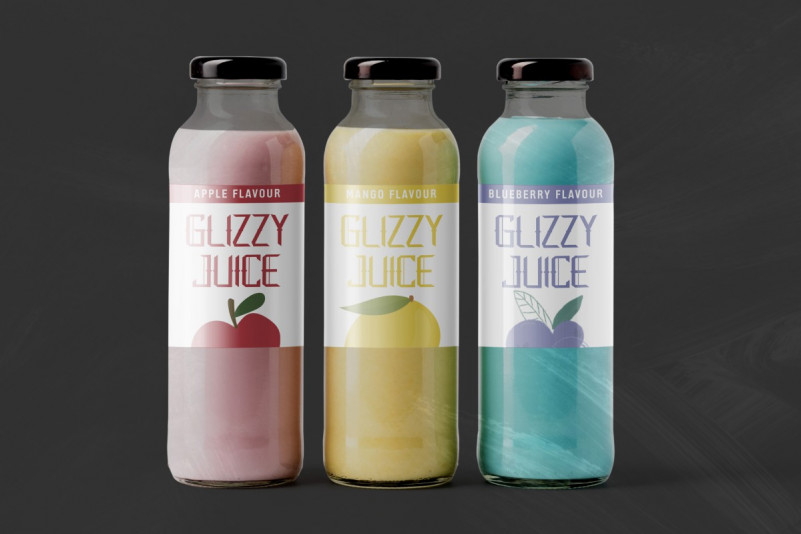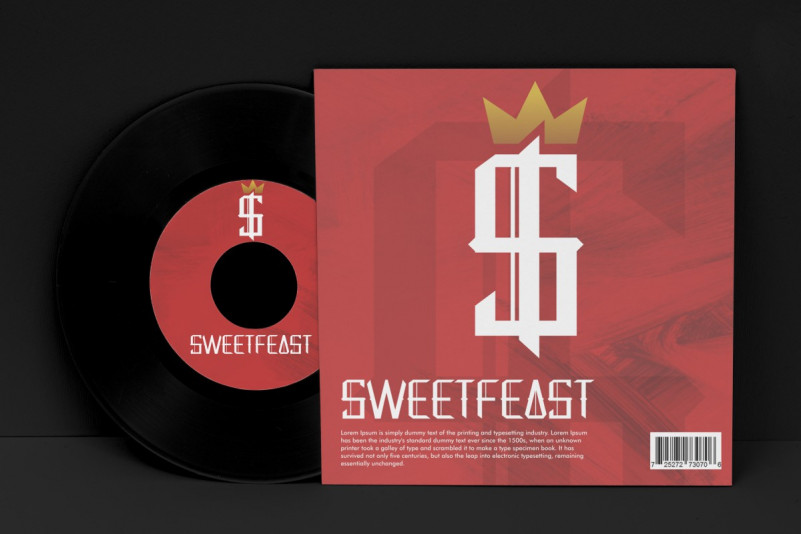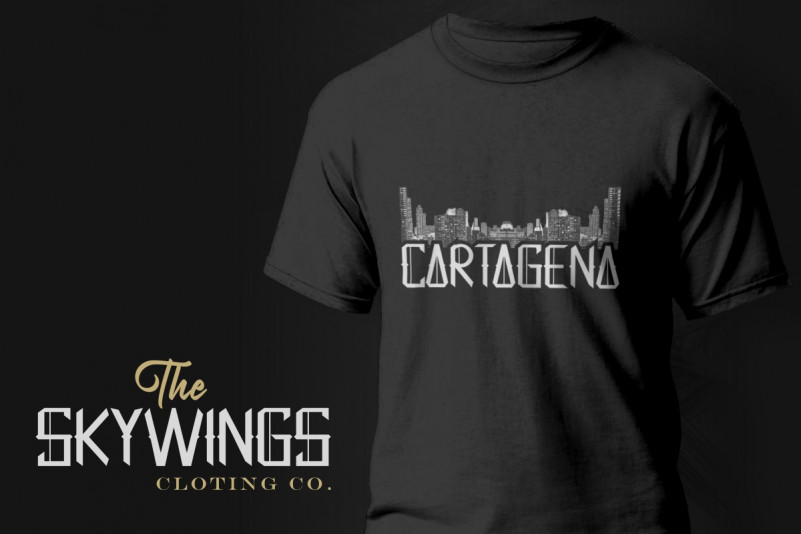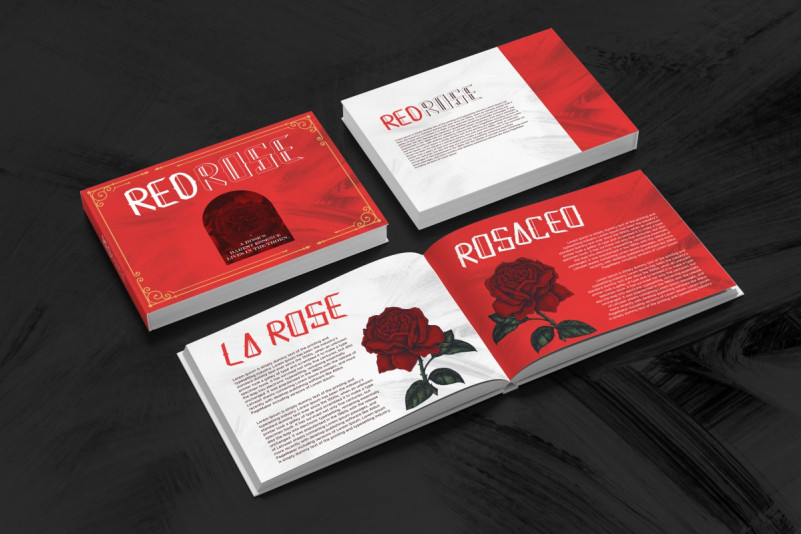
Dangerous Font
Dangerous Blackletter Font
This is a Gothic Blackletter serif display font family with unique style. The font will be great for logo, brandings, headlines etc. The font will suit many industries including music, cafe/restaurant, motor club, fashion etc